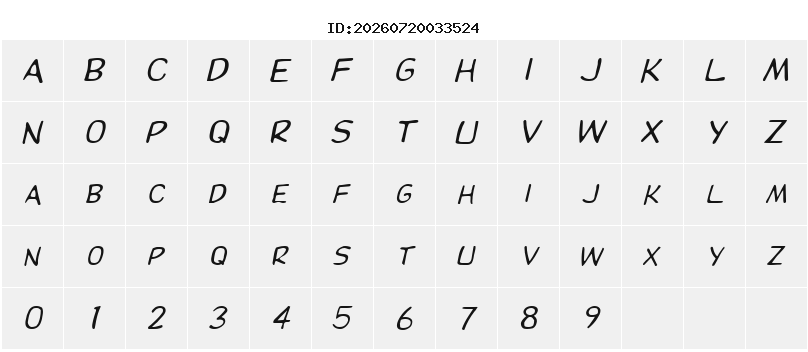
Elizabeth-Extended Preview
• Font Name: Elizabeth-Extended
• Font ID: CSC:Elizabeth-Extended Italic
• Full Font Name: Elizabeth-Extended Italic
• Version: 1.0/1995: 2.0/2001
• PostScript Name: Elizabeth-ExtendedItalic
• Character Count: 216
About Elizabeth-Extended.ttf
Elizabeth-Extended.ttf is a modern, elegant sans-serif font designed for ultimate readability and visual harmony. Perfect for branding, headlines, web design, and print materials.